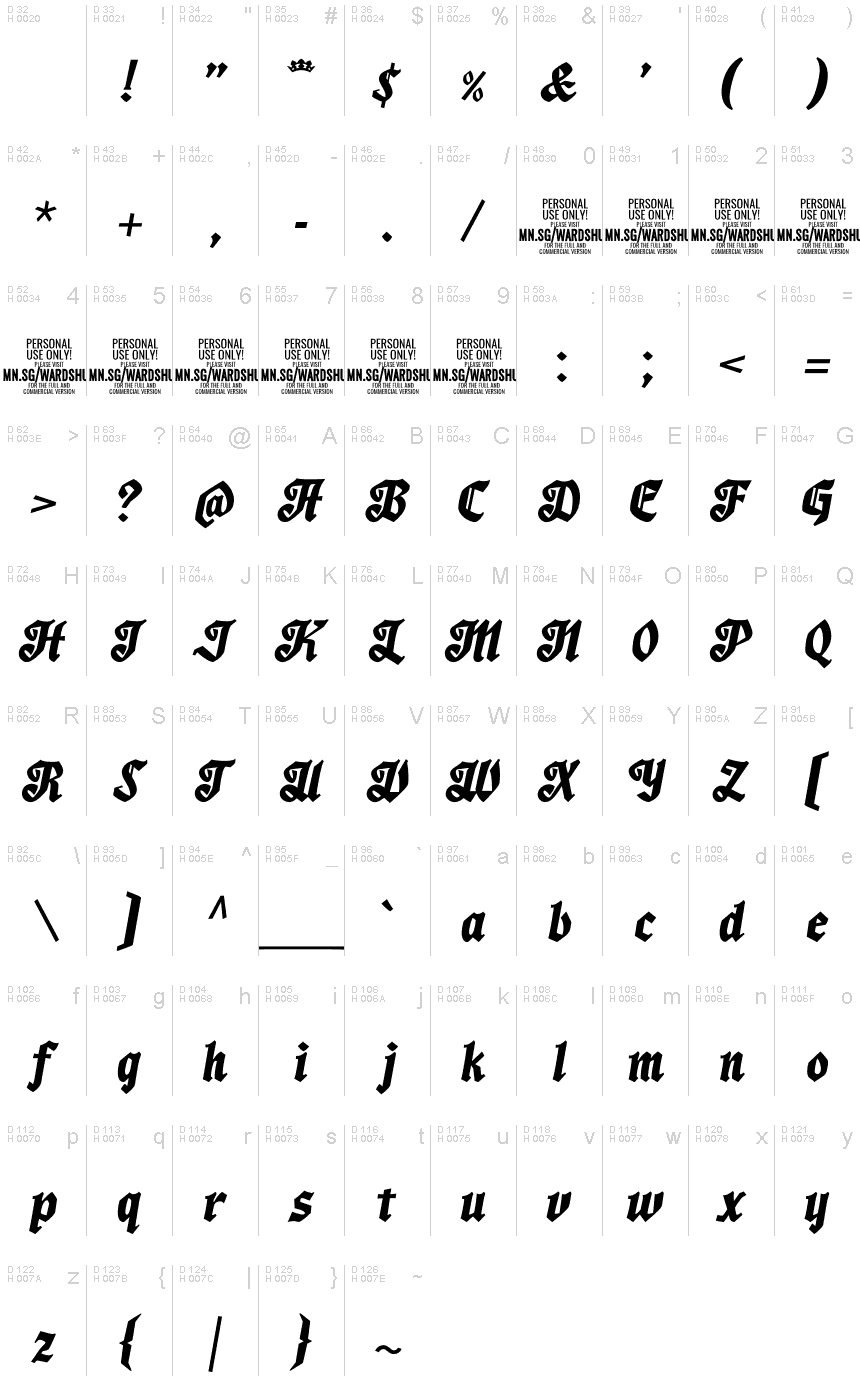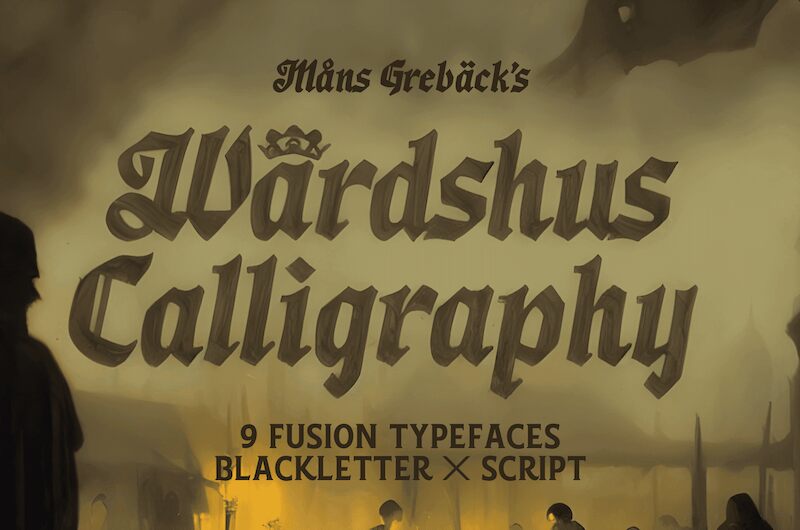
Wardshus Calligraphy PERSONAL Regular
Wardshus Calligraphy is a bold and modern gothic font designed by Mans Greback. Its intricate calligraphic details make it suitable for elegant projects such as wedding invitations, event posters, and high-end branding. The thick and bold strokes of this semi-bold typeface give it an unparalleled presence on print or digital mediums. Wardshus Calligraphy adds a touch of sophistication to any project that requires a strong visual impact. Its versatility in design makes it perfect for projects ranging from fashion to food packaging, from cosmetics to corporate presentations. Make a statement with Wardshus Calligraphy.
Wardshus Calligraphy is a unique blend of medieval gothic style and modern script, creating a distinctive and eye-catching blackletter font. The typeface is a testament to the rich artistic history of the past, reimagined for contemporary design projects.
Use # after any letter to make a crown.
Example: Que#en
Use underscore _ anywhere to make a swash.
Example: Kingdom_Heroes
Use multiple underscores to make underlines of different lengths.
Example: Knig___hters